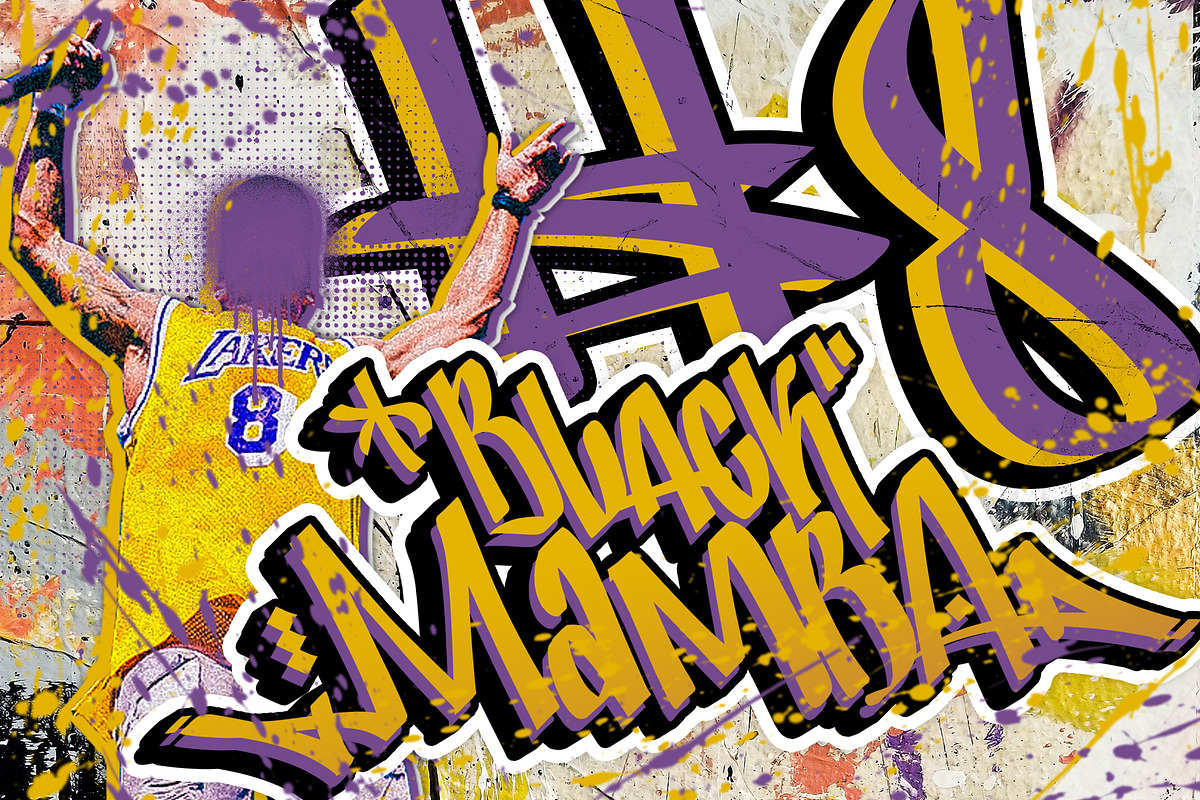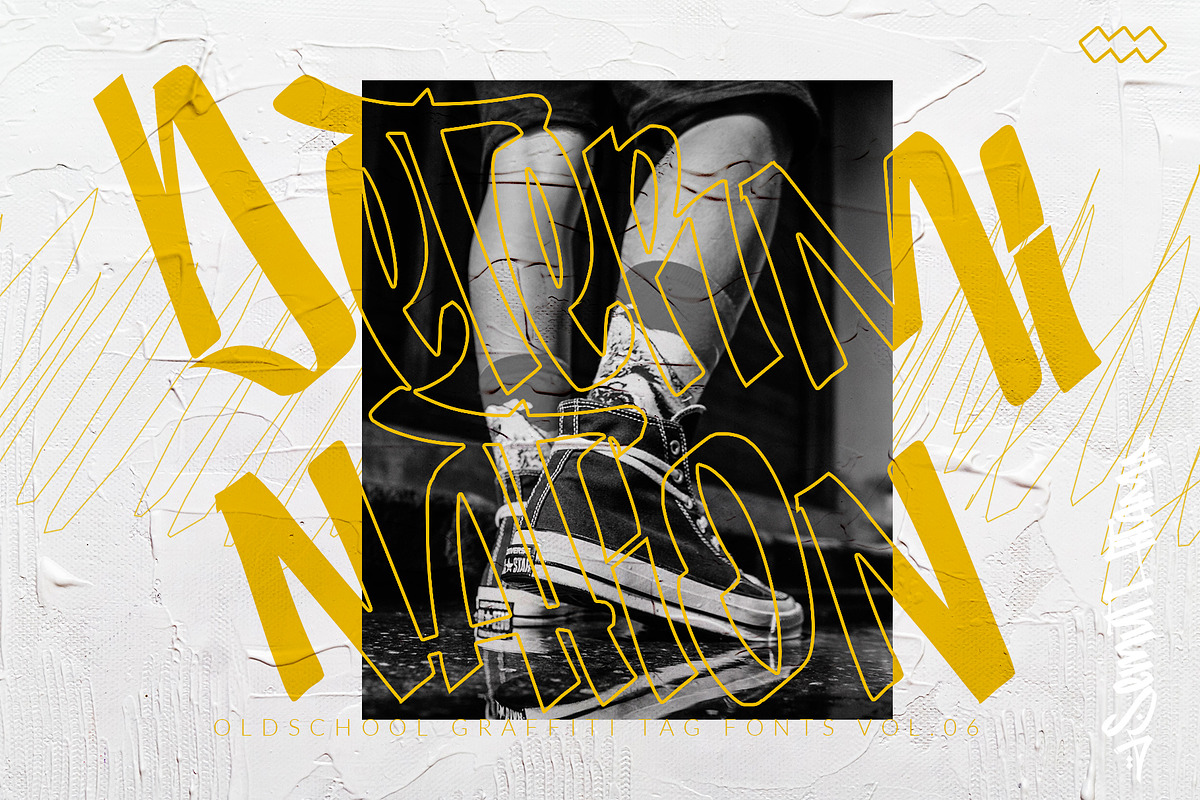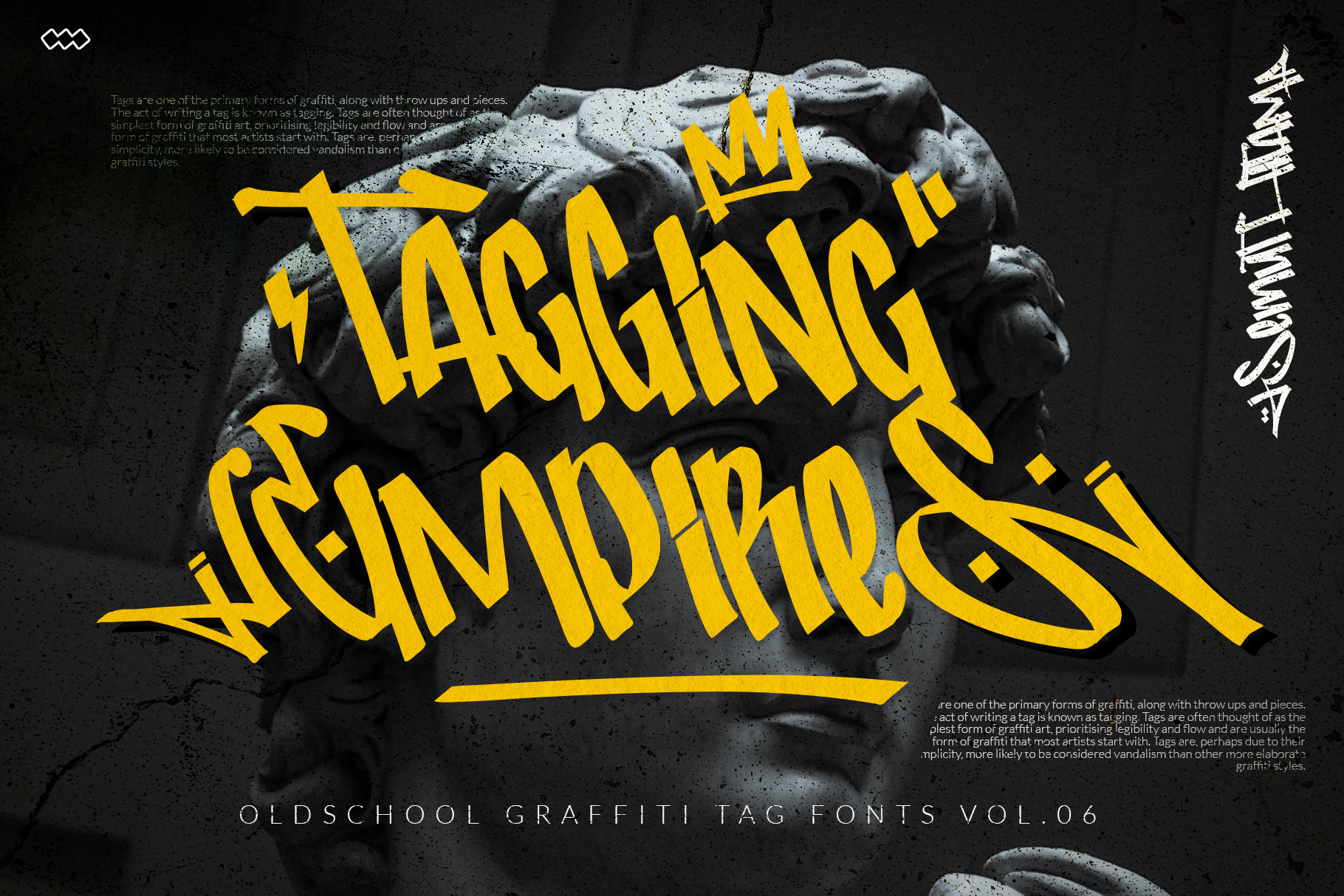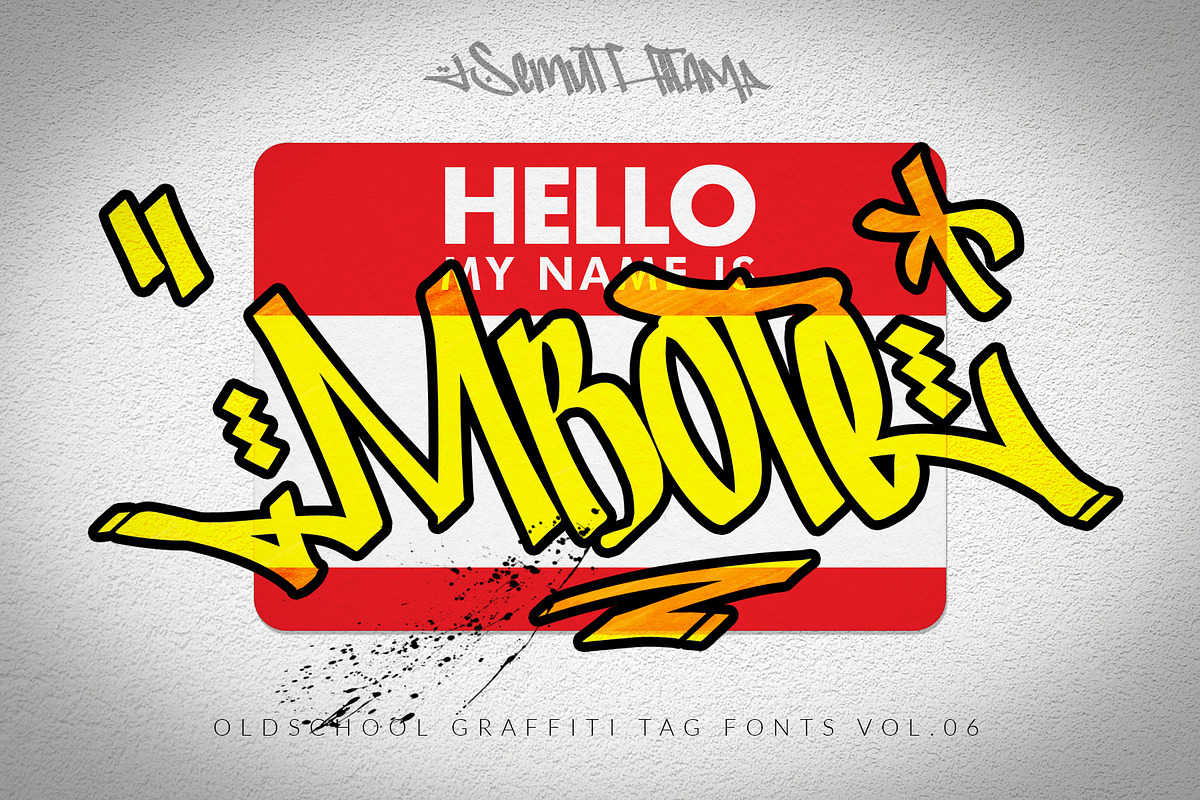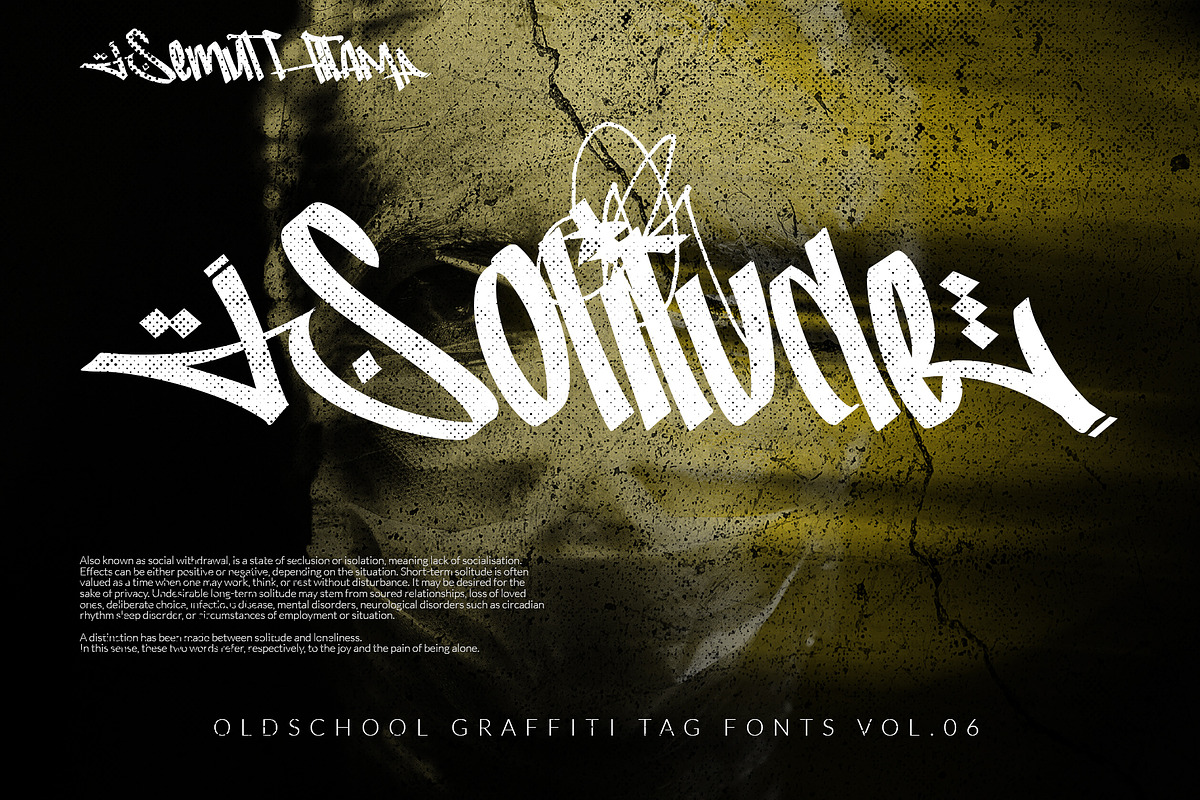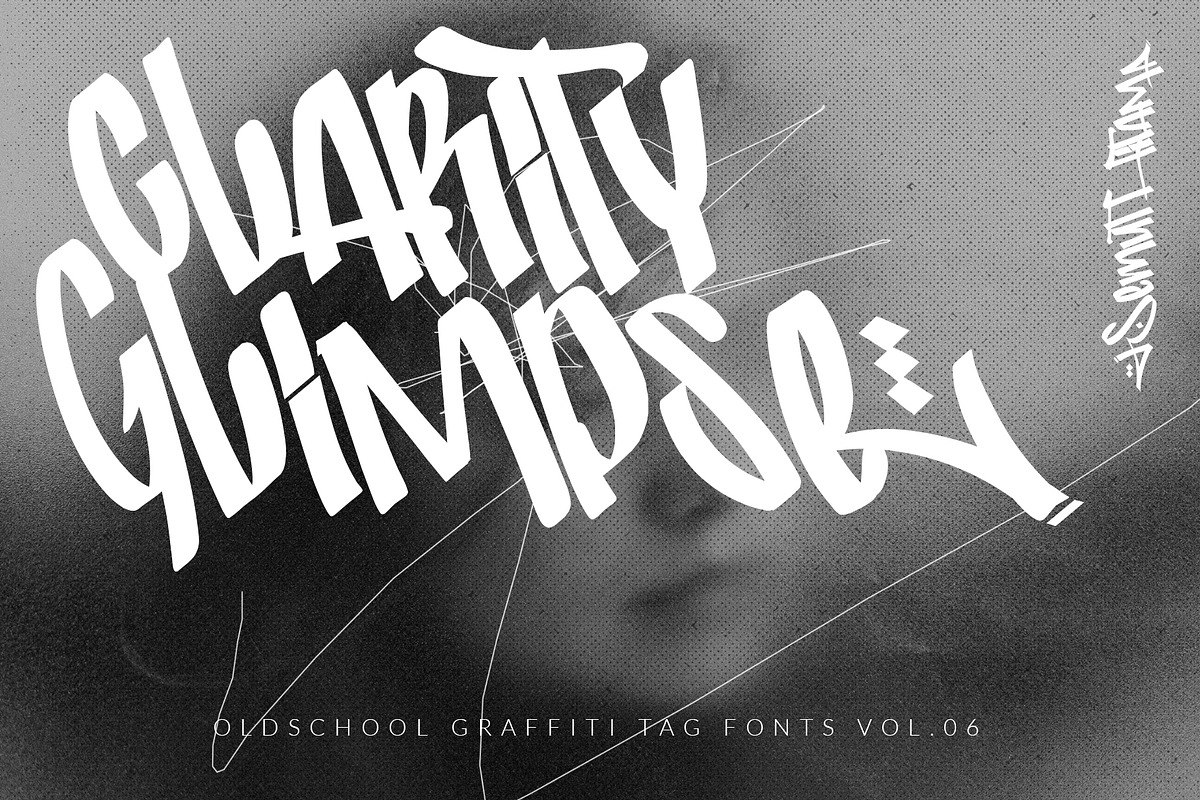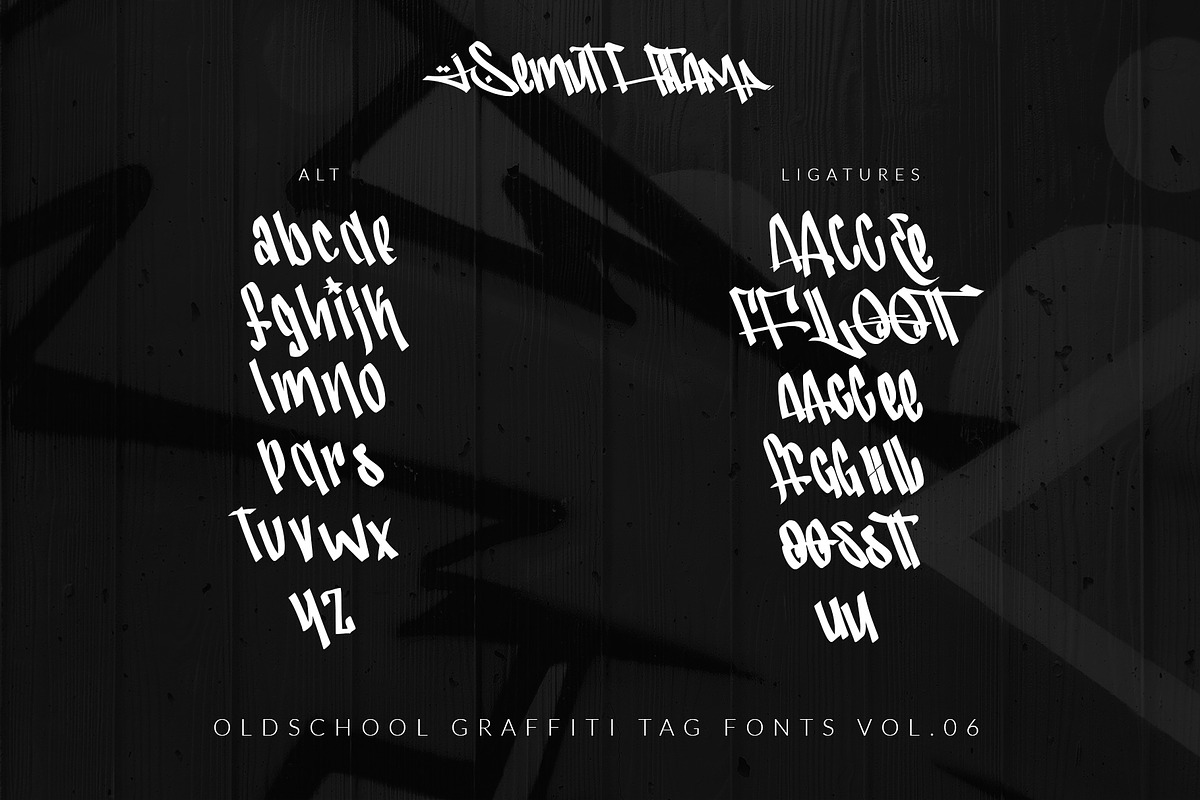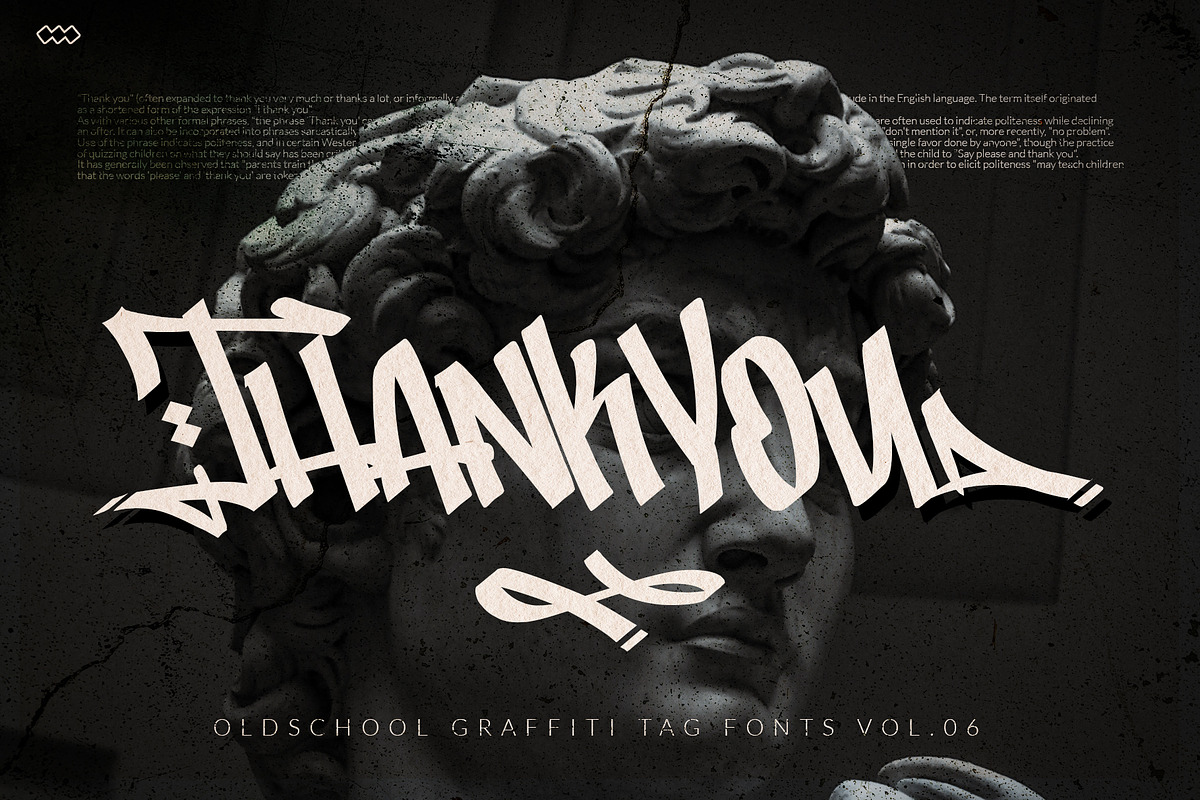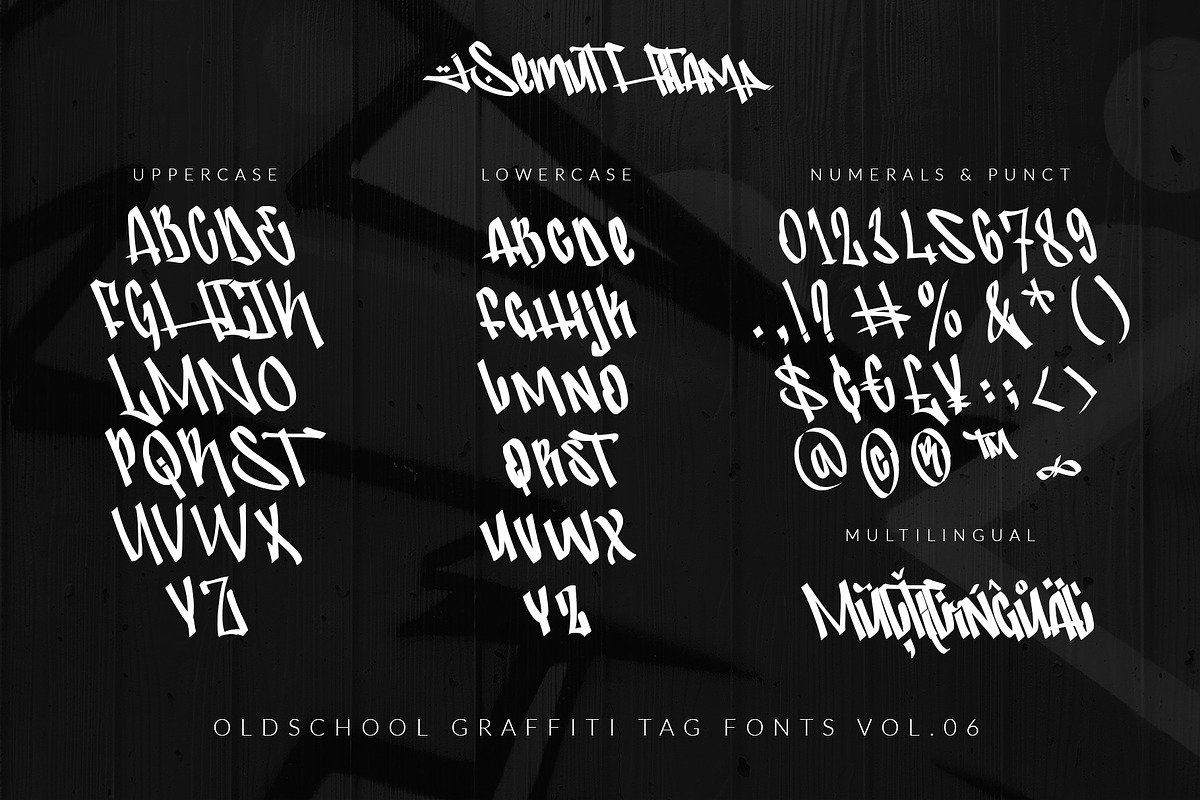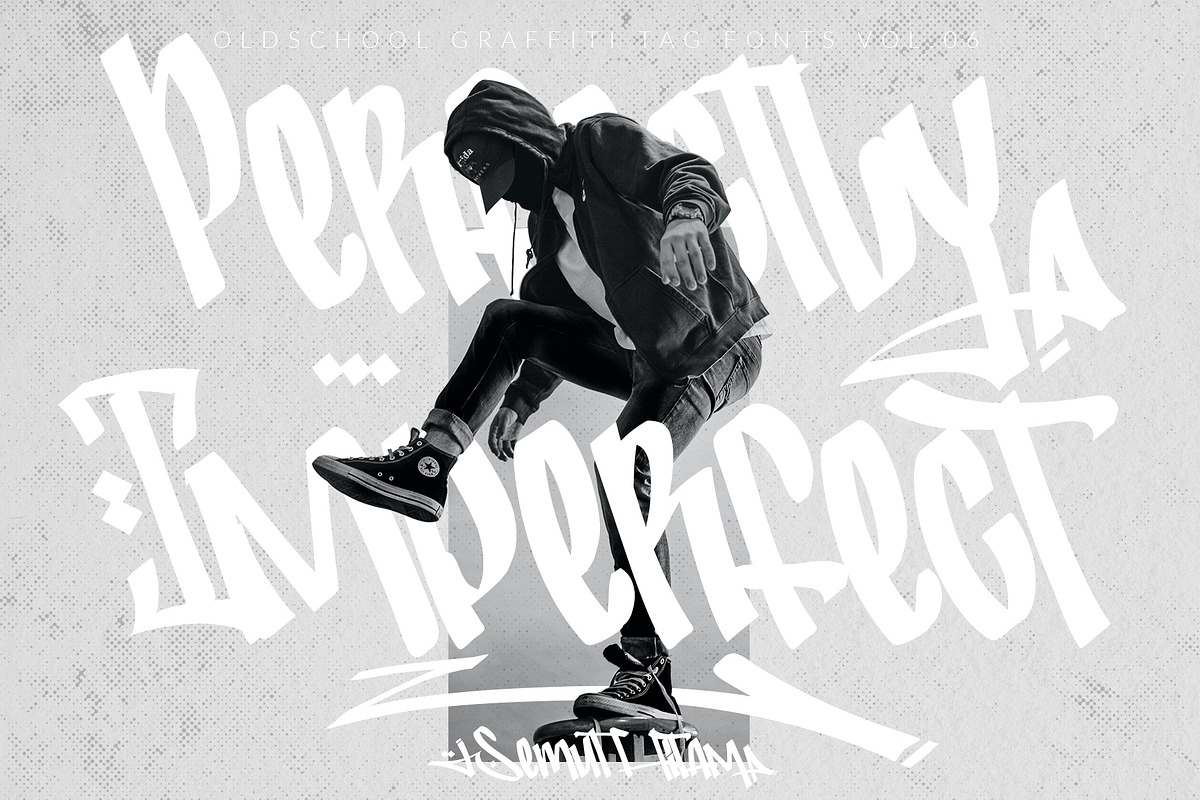
Tagging Empires - Graffiti Tag Font
Tags are one of the primary forms of graffiti, along with throw ups and pieces. The act of writing a tag is known as tagging. Tags are often thought of as the simplest form of graffiti art, prioritising legibility and flow and are usually the form of graffiti that most artists start with. Tags are, perhaps due to their simplicity, more likely to be considered vandalism than other more elaborate graffiti styles.
Tagging Empires is another example of old-school graffiti that is ideal for designers who want to add a little additional flair to their designs. come in .OTF .TTF .WOFF .WOFF2.
Tagging Empires is an old-style graffiti font suitable for product labels. In the graffiti world, you'll often use the initials as a signature for your work, or you'll use them as a battle symbol during a graffiti fight.
This font was inspired by the old-school graffiti tagging of the 1970s and 1980s.
It features a comprehensive collection of distinctive and snappy written characters that are ideal for use on product labels, editorials, and even logo design.
In addition,Tagging Empires offers a number of ligatures that may be customized to meet your specific demands as a designer.